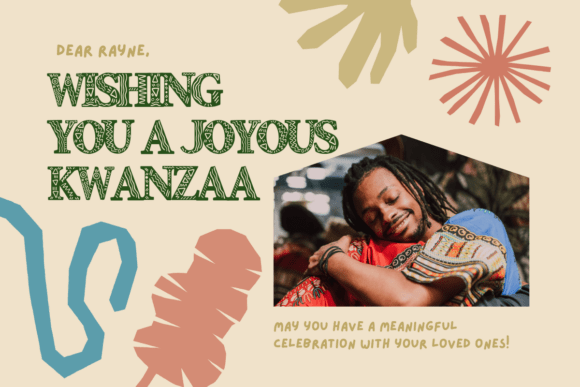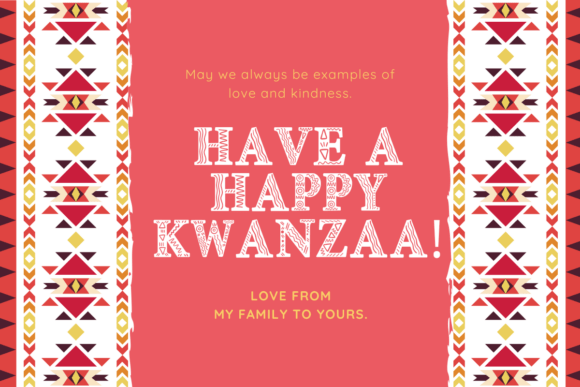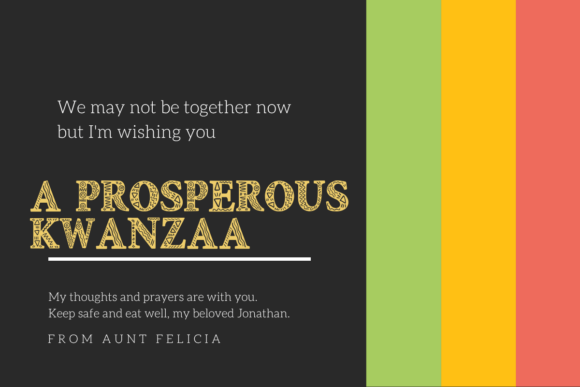
Introduction to Kwanzaa Hand Drawn Font Font
Fonts play a crucial role in design, and the Kwanzaa Hand Drawn Font font is a typeface that brings both character and versatility to any project. Whether you’re working on a branding project, a website, or a print design, the Kwanzaa Hand Drawn Font font offers a unique style that can elevate your work.
Kwanzaa Hand Drawn is a richly textured and celebratory decorative typeface, capturing the joyful spirit and cultural patterns of the Kwanzaa holiday.
Featuring bold, hand-drawn letterforms filled with intricate tribal, zigzag, and African-inspired designs, this font instantly adds warmth and authenticity to your work It is perfectly suited for seasonal event invitations, cultural posters, educational materials, greeting cards, and any project focused on celebrating heritage and community.
Key Features of Kwanzaa Hand Drawn Font Font
Why Choose Kwanzaa Hand Drawn Font Font?
The Kwanzaa Hand Drawn Font font is more than just a typeface – it’s a design tool that helps you communicate your message with style and clarity. Its unique character set and versatile design make it suitable for a wide range of applications, from elegant invitations to bold headlines.
With its carefully crafted letterforms and balanced proportions, the Kwanzaa Hand Drawn Font font ensures readability and visual appeal across all mediums.
What makes Kwanzaa Hand Drawn Font font special?
The Kwanzaa Hand Drawn Font font stands out with its unique design, exceptional readability, and versatility across various design applications.